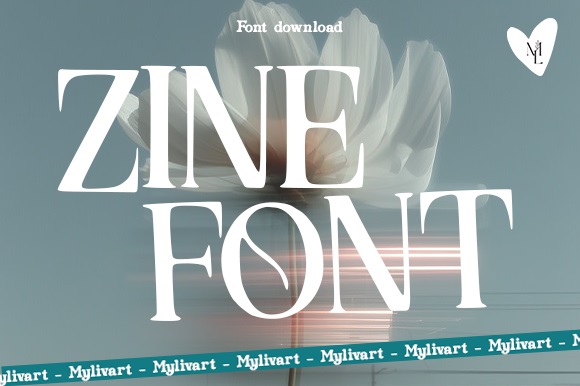
Zinef Font
Zinef is a classy serif font with clean lines, contemporary style and timeless design. Perfect on editorial design, corporate branding, fashion magazine, minimal ethos logos and luxury packaging. Zine offers a classy touch in digital and print projects with the high readability and great refined details.
It is ideal as a serif typeface to be used by designers who want to create a fashionable but at the same time conservative touch. Compatible with the most popular design programs and suitable to high-level design work.
Zinef Serif Font